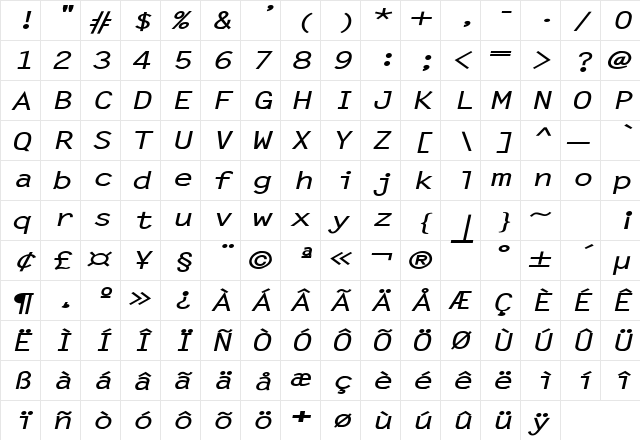
Lechter Extended Bold Italic
Design Context for Lechter Extended Typeface
Lechter Extended takes a measured approach to typography — its balanced proportions and neutral character make it a reliable workhorse for both digital and print work. Its italic angle brings a sense of urgency and motion to the letterforms. Its bold stroke weight gives it real presence on the page.
Pro Tip: Use Lechter Extended for emphasis, pull quotes, and subheadings where its slanted energy can add rhythm to the layout.